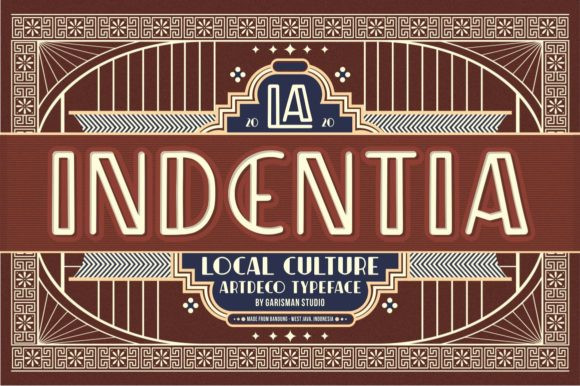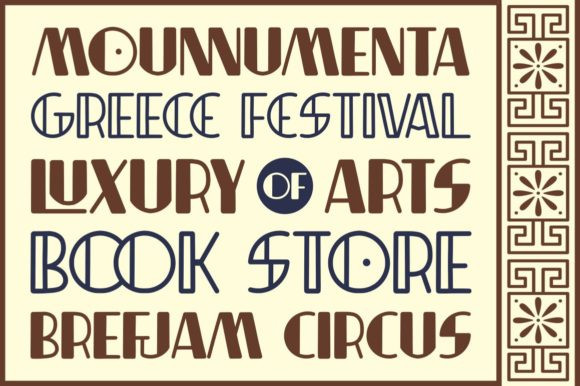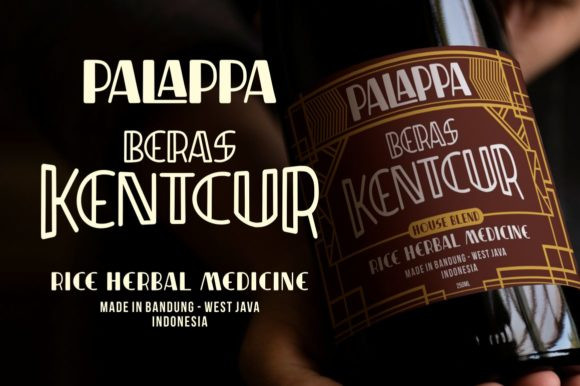
Indentia Font
Indentia is a beautiful decorative font, which has been inspired by Art Deco style.
It is designed with careful lines and a stylistic set of ligature features and has 200+ glyphs.